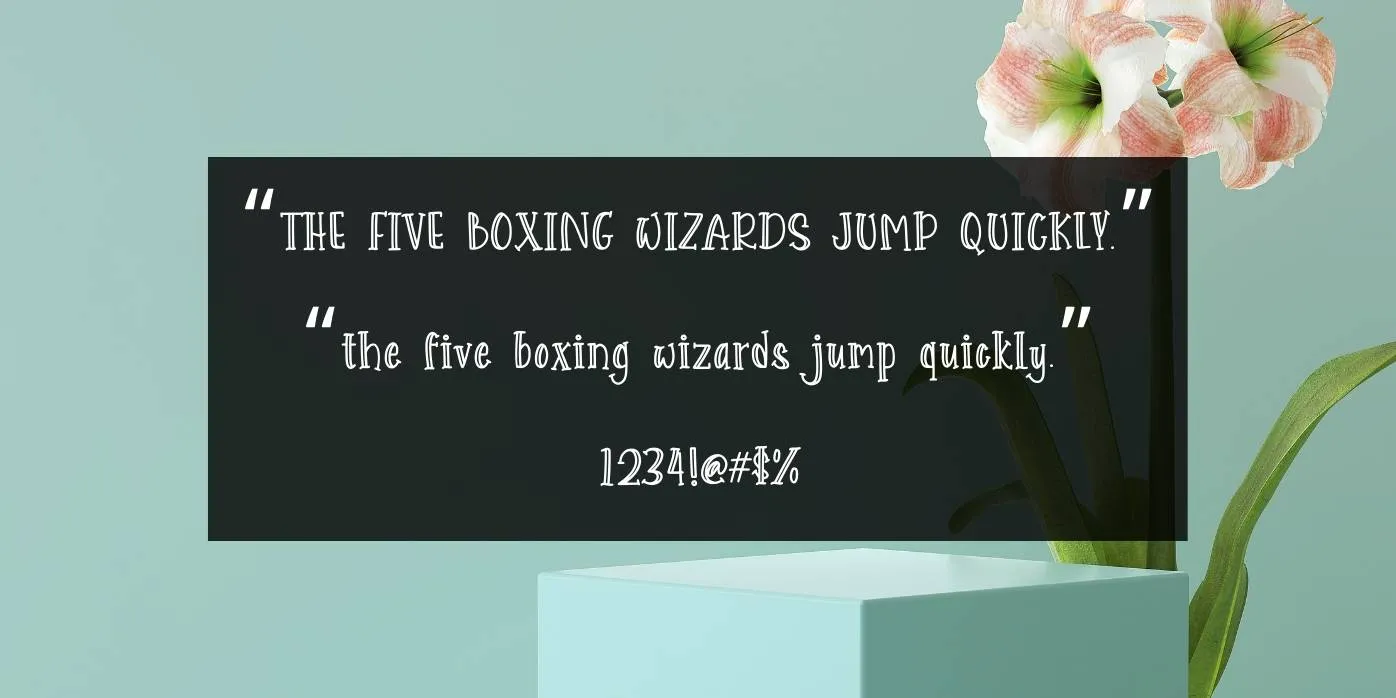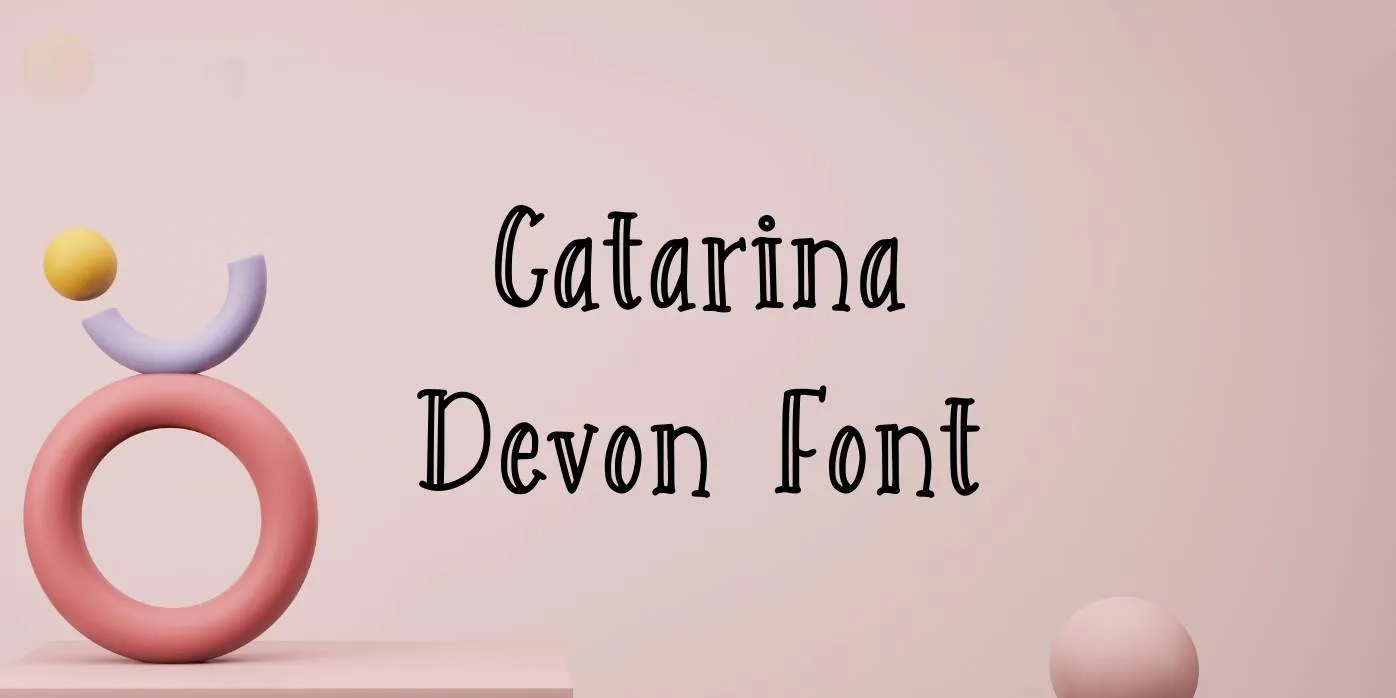
Catarina Devon Font
Today, we are consulting on a modern typeface known as Catarina Devon Font. This family belongs to the display family. This font family was created by Allouse Studio. The typeface is characterized by unique curved shapes.
The shapes are inspired by vintage labels, which makes the family perfect for headlines, logotypes, and quotes. This stunning font family contains two fonts: Regular and Italic. It is perfect for Adobe and Canva. Another similar font which is the brothers font is perfect for different designs.
This family is a great choice for those who are looking for a modern and stylish font. This family is perfect for headlines, logotypes, and quotes. If you are looking for a unique and stylish Typeface, then the Catarina Devon Typeface family is the perfect choice for you. You will have to use its generator tool and enjoy its features.